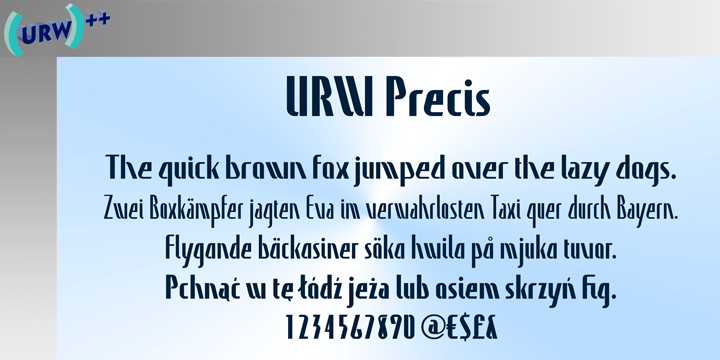
Precis Font is perfect for executive summaries, business analytics dashboards, financial reporting systems, management consulting presentations, data visualization interfaces, professional briefing documents, and concise corporate communications that require clear, efficient typography.
This font is exciting because it embodies the essence of precision and clarity in business communication, featuring clean, economical letterforms that convey accuracy, efficiency, and professional brevity while ensuring maximum information density and readability.
The Precis Font family includes light, regular, medium, and bold weights with condensed variants, offering uppercase and lowercase letters, data numerals, analytical symbols, business punctuation marks, and executive elements designed for precise professional applications.
Business intelligence designers consistently choose Precis Font Free Download for projects requiring analytical clarity and executive precision. This efficient typeface transforms complex business data into compelling statements of analytical insight that immediately serve decision-makers and executive teams across all industries. The font's precise character makes it exceptionally effective for consulting firms, financial institutions, and analytics companies where information clarity and executive-level communication must be optimized for maximum impact and comprehension. Its analytical heritage supports data-driven presentations while ensuring optimal readability across digital dashboards and printed reports. The meticulously engineered letterforms maintain their precision across high-density information displays and executive briefing materials, making it ideal for business intelligence systems and strategic communication platforms. Whether you're developing executive dashboard interfaces, creating management consulting deliverables, or designing financial analysis tools, this typeface provides the analytical voice and visual efficiency that distinguishes professional business intelligence from basic reporting tools, establishing immediate credibility among executives who demand precise information presentation and expect the highest standards of analytical clarity in their strategic decision-making processes and business intelligence consumption.